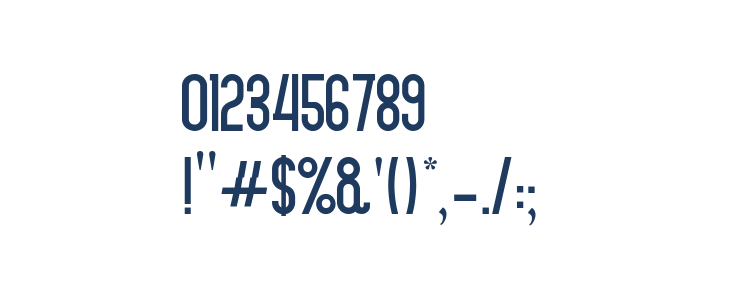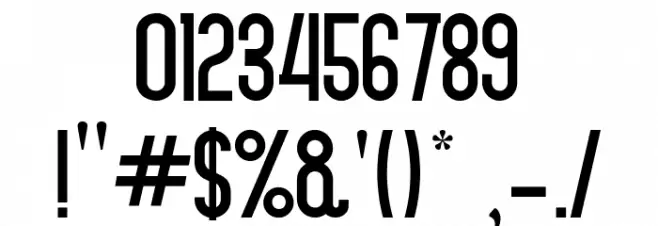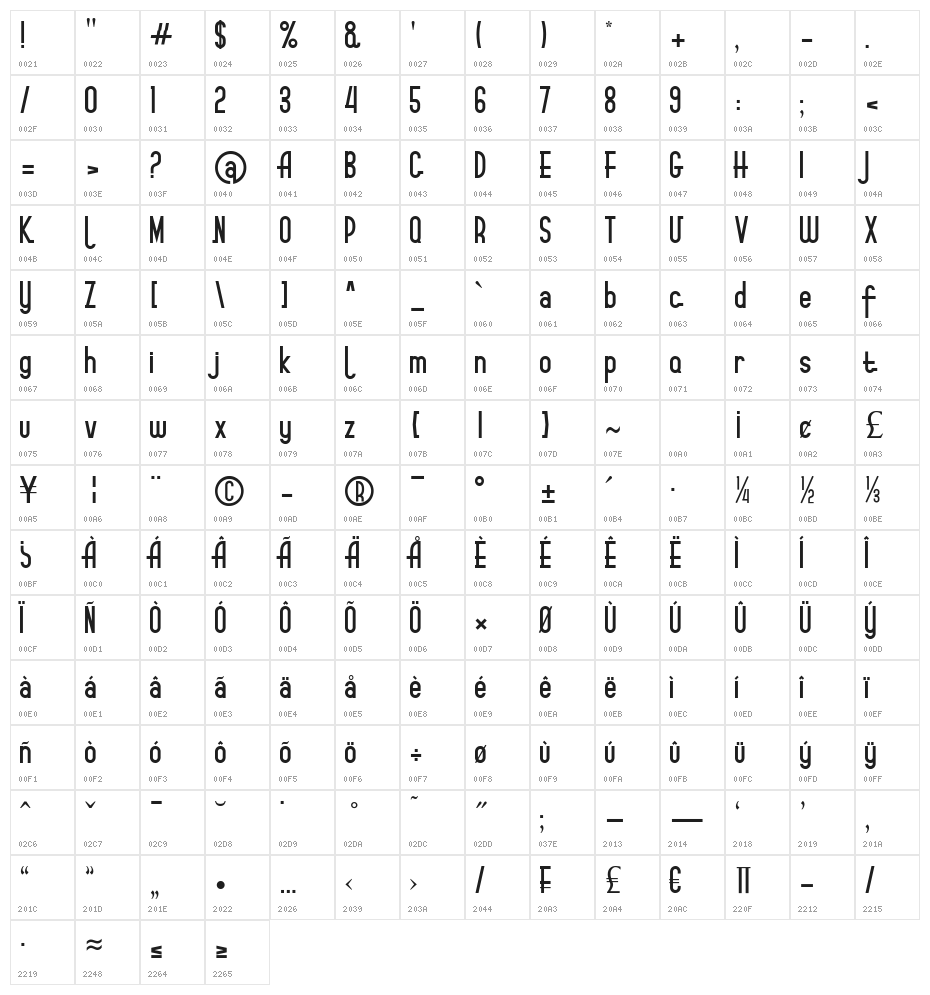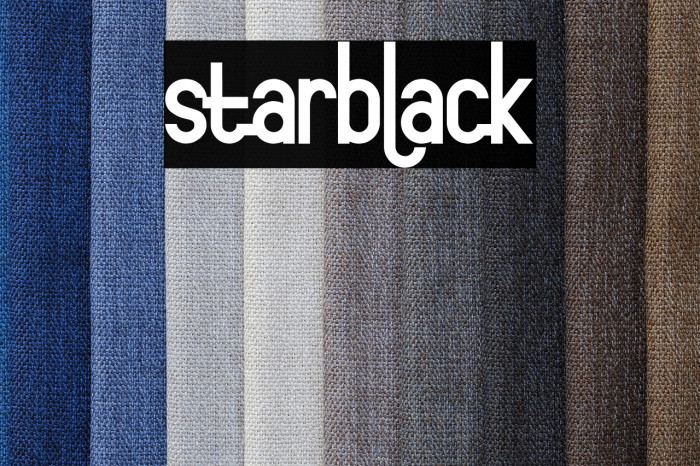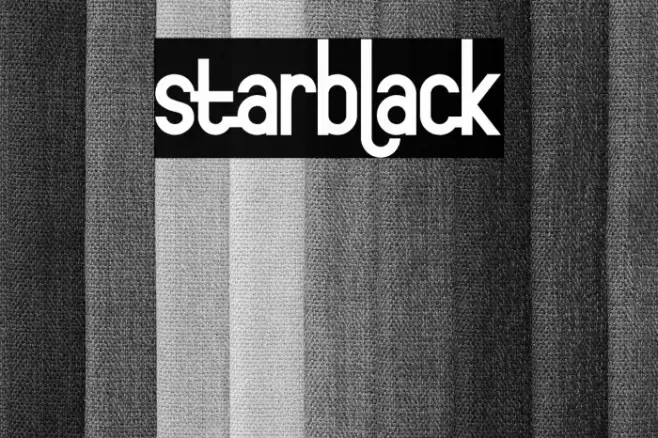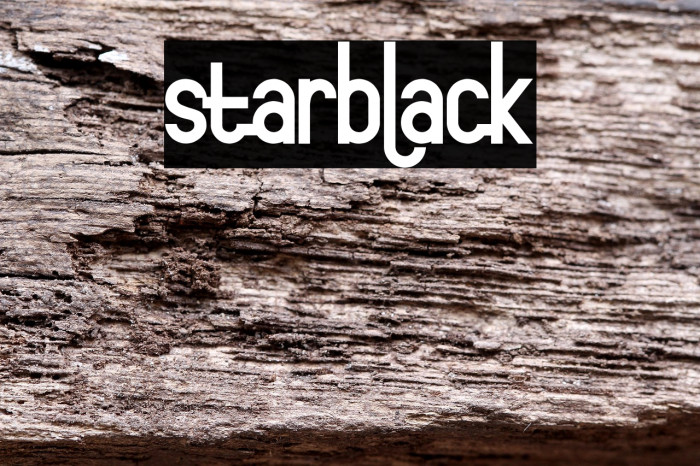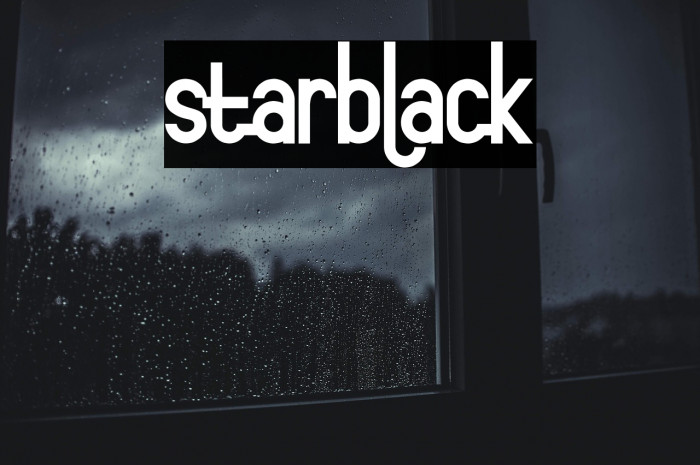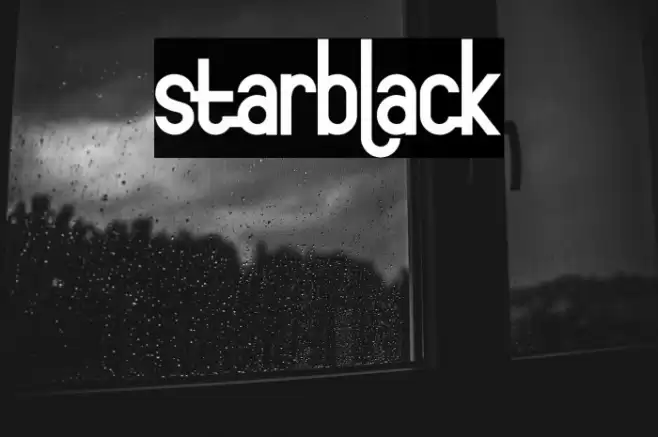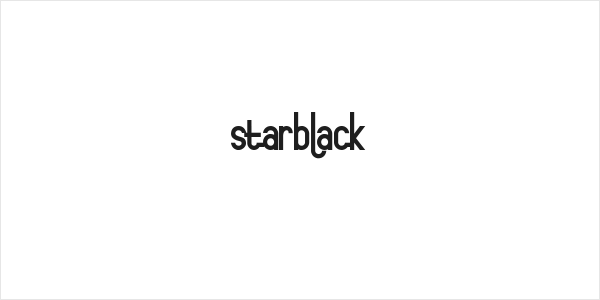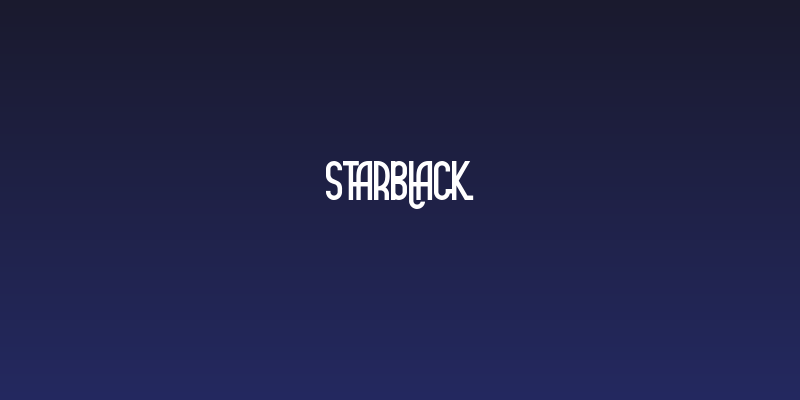
starblack Font
starblack Description
This font features a bold and modern design with a distinct geometric structure. The uppercase letters are tall and narrow, with a consistent stroke width that gives a clean and uniform appearance. The lowercase letters maintain the geometric style, with rounded edges that add a touch of softness to the overall look. The numerals are equally bold and follow the same geometric principles, ensuring readability and consistency. Special characters are designed to match the overall aesthetic, making this font versatile for various applications.